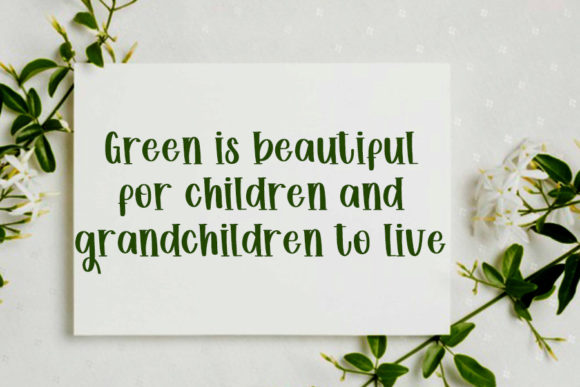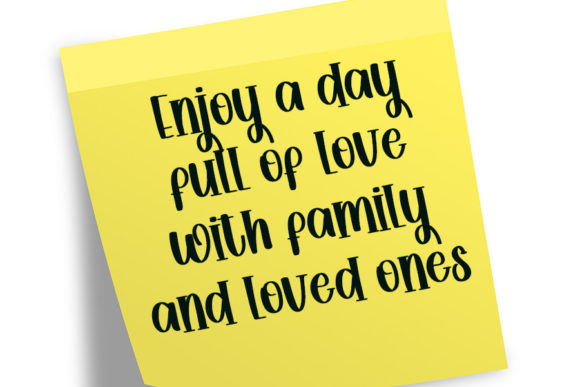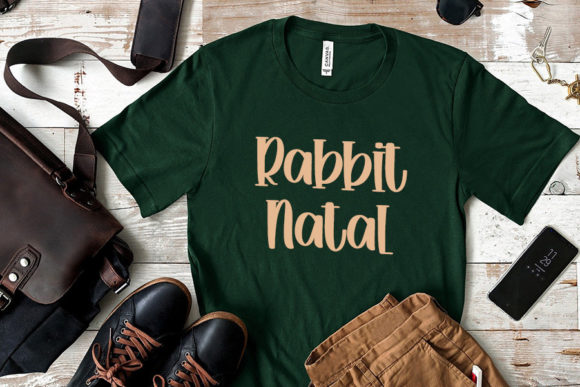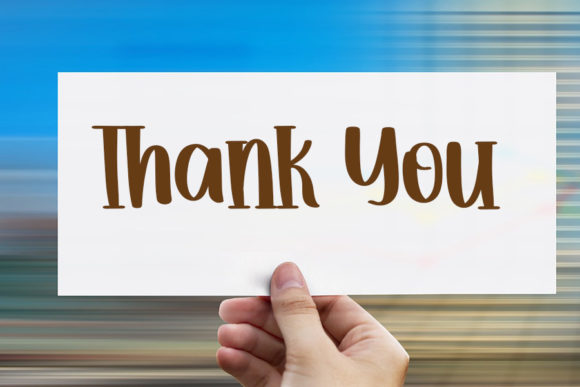
Introduction to Christmas Promotion Font
Christmas Promotion is a fun, quirky handwritten font.
Key Features of Christmas Promotion Font
Why Choose Christmas Promotion Font?
Christmas Promotion Font offers exceptional quality and versatility, making it a valuable addition to your design toolkit. Whether you’re creating for personal projects or commercial use, Christmas Promotion Font delivers professional results.